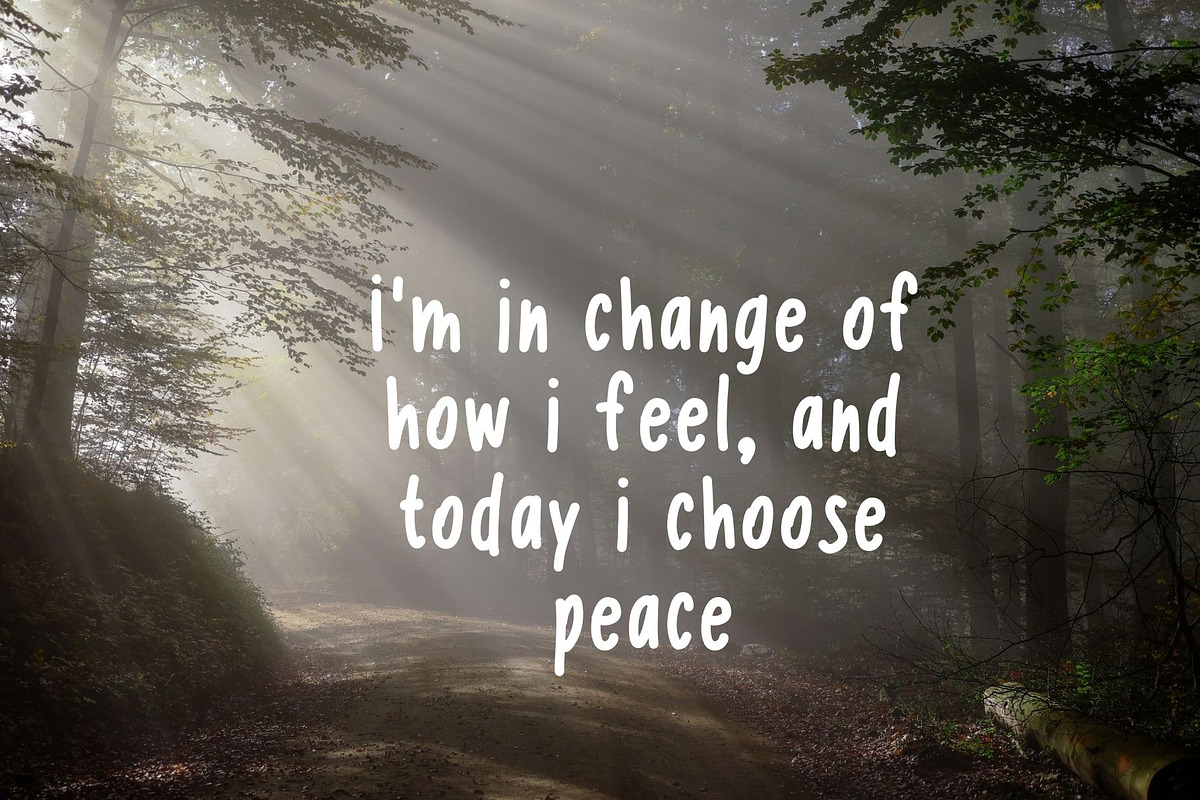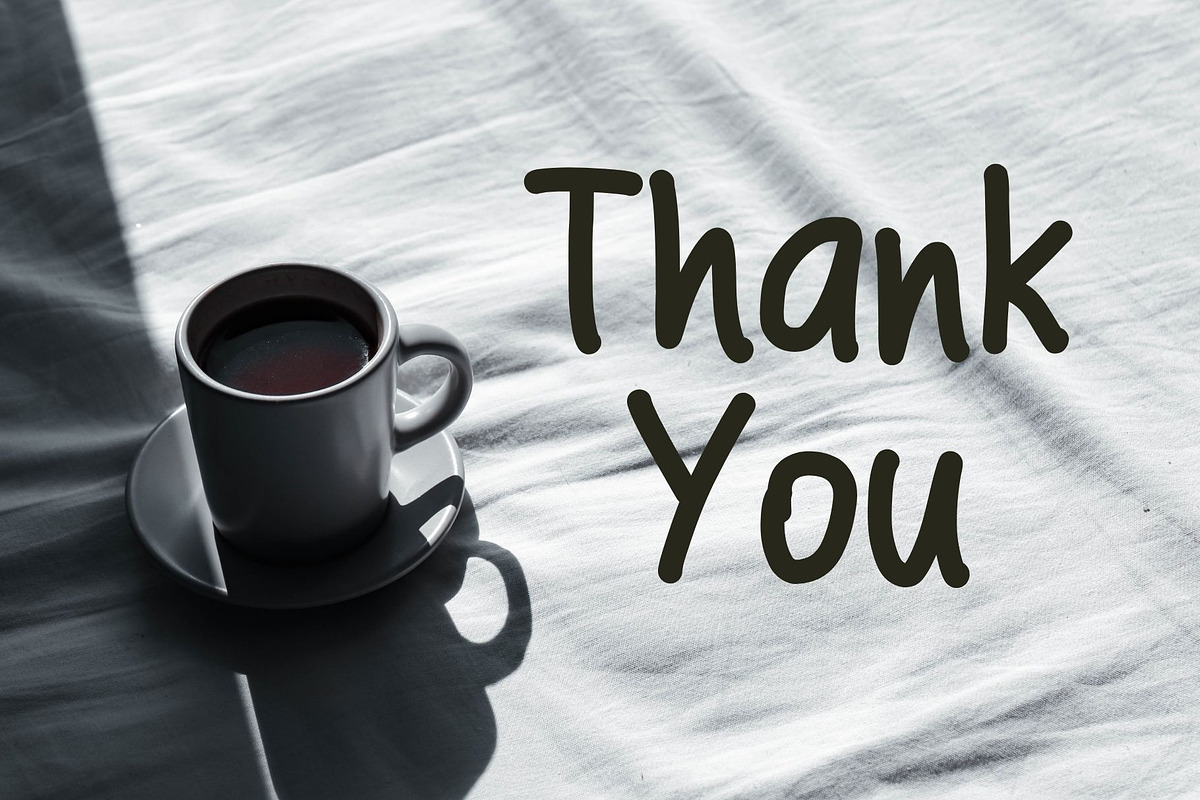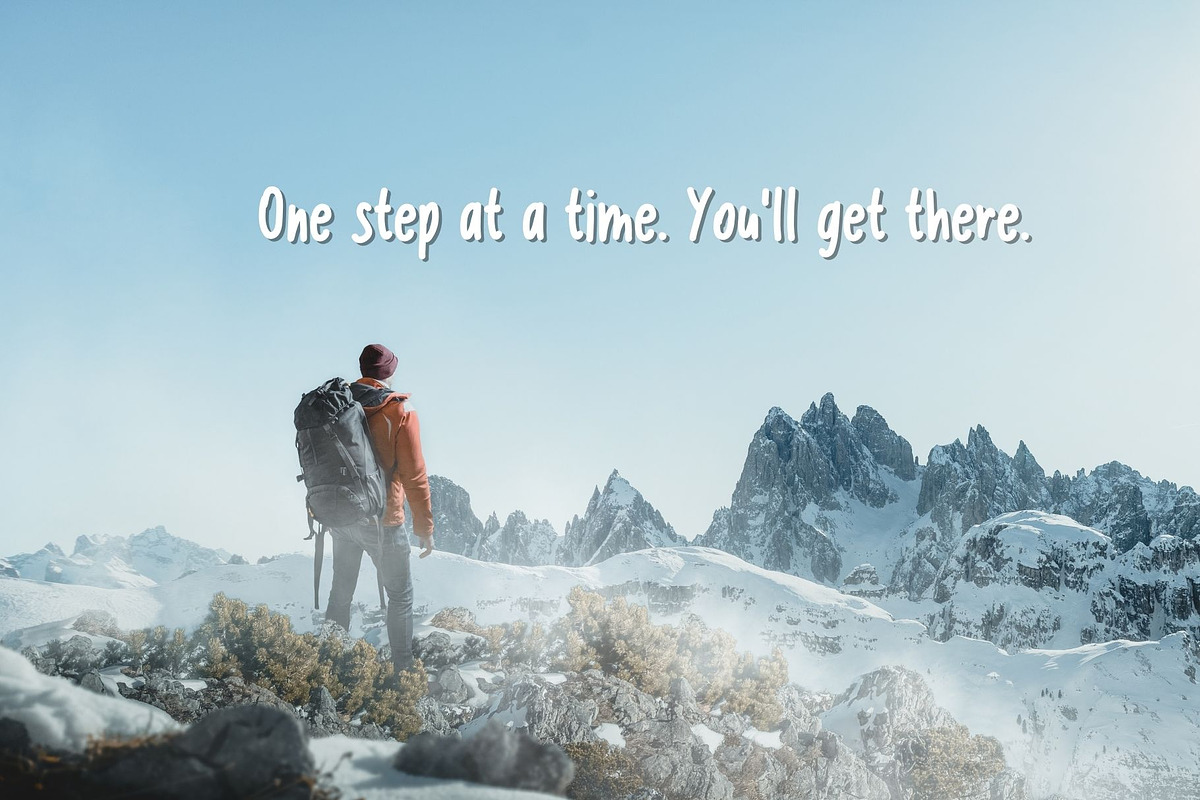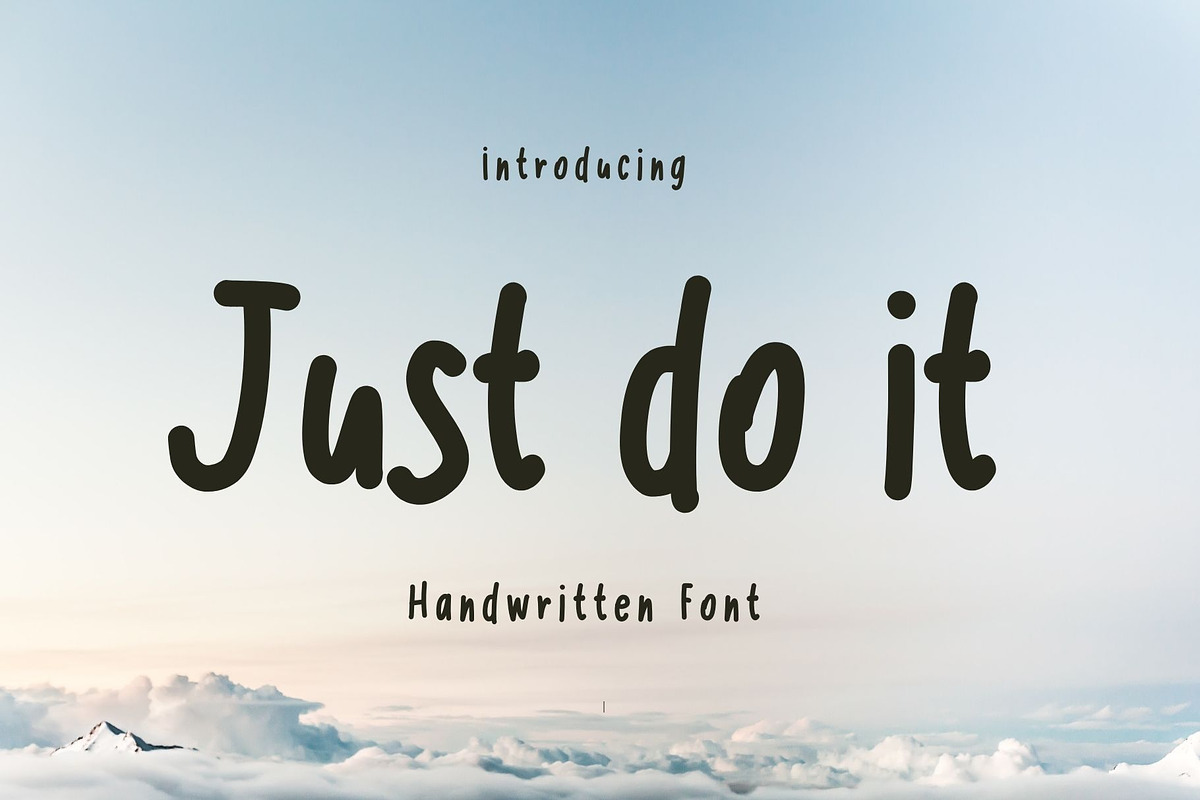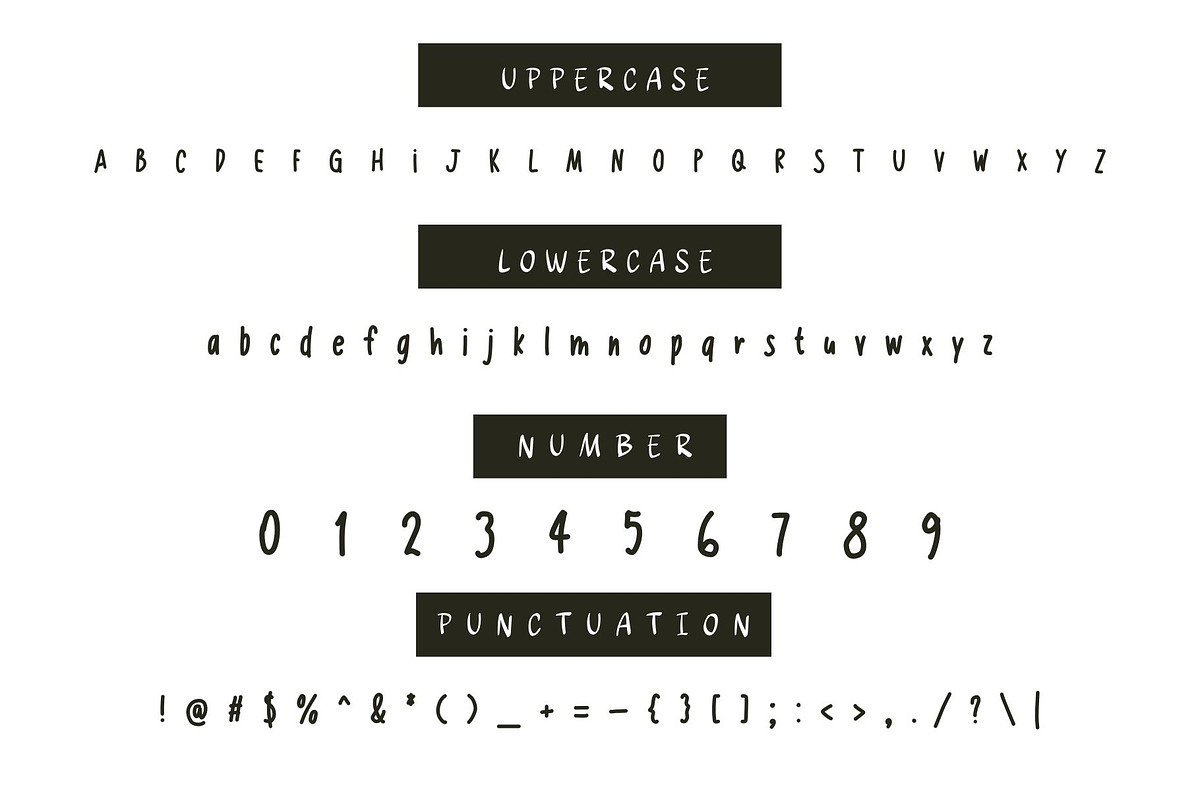
Just do it
Just do it is a cute notebook handwritten font. It embodies playfulness and authenticity and is the perfect choice for all your favorite projects such as blog posts, logos, branding, ads, invitations, greeting cards, planners, photo albums, decorations, and much more. Add it to any of your designs, and enjoy the results!